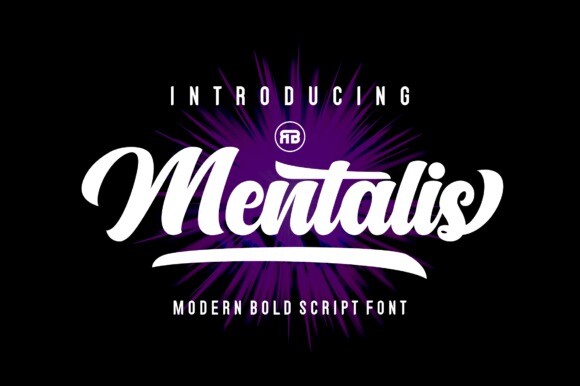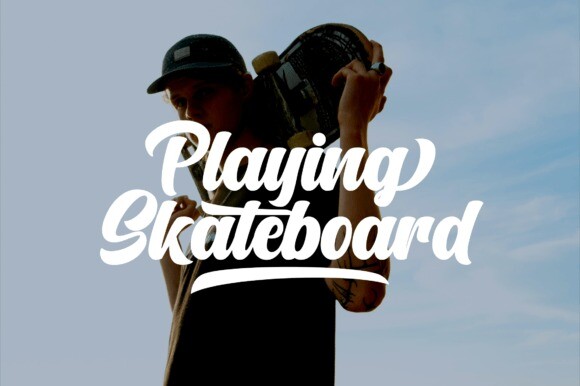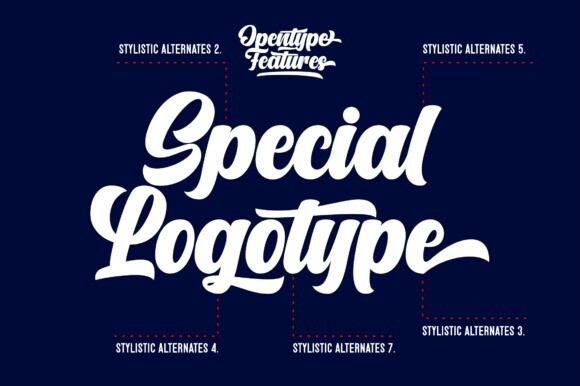
Mentalis Font
Mentalis is a modern and bold script font. Made carefully to get the best curves and unique form that never exist before. No matter the topic, this font will be an incredible asset to your fonts’ library, as it has the potential to improve any design idea. This font is PUA encoded which means you can access all glyphs and swashes with ease!